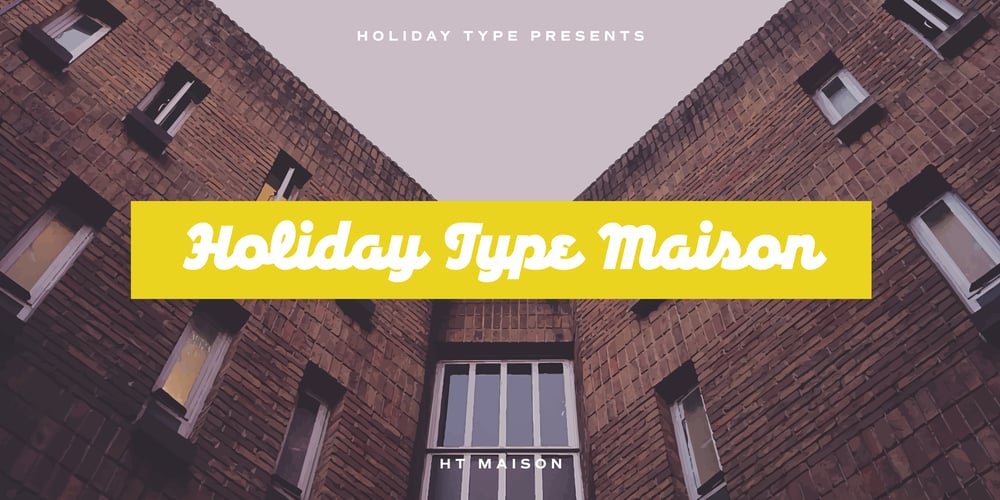
HT Maison Font Family was designed by Ryoichi Tsunekawa and published by Dharma Type. HT Maison contains 1 styles and family package options. HT Mason is bold and hand painting font. This font is retrospective and decent, but it is also funny and cute. Holiday Type Project offers retro hand drawing scripts. Inspired by retro script on shopfront lettering, wall paint advertisements in Italy around 1950s. Check out the script fonts from Holiday Type!